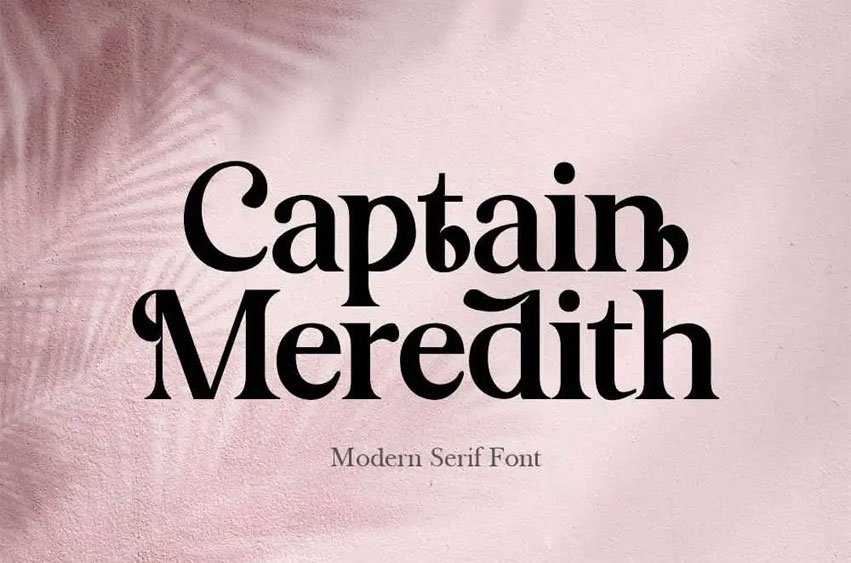
Captain Meredith Font
Captain Meredith Font Proudly present Captain Meredith Typeface , created by Storytype, A serif modern and classic typeface that has own unique style & modern look. This typeface is perfect for an elegant & luxury logo, book or movie title design, fashion brand, magazine, clothes, lettering, quotes, and so much more.